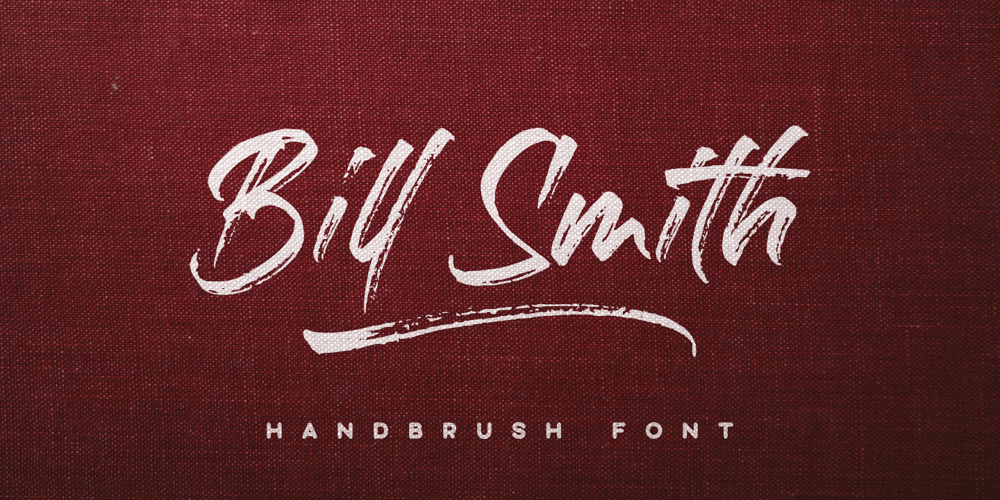
Bill Smith Font Family was designed by Hasan Udin and published by Ghuroba Studio. Bill Smith contains 1 styles and family package options. Bill Smith is a fast writing brush script with textures and swashes. This will make your design or project look perfect with authentic characteristics. It’s perfect for branding, marriage invitations, poster designs, business cards, bulletins, stationery, logos, packaging, design and more.